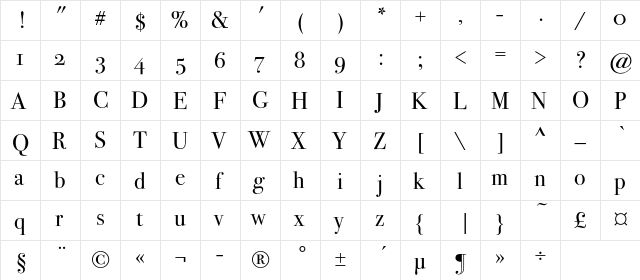
Bodoni72OSC Regular
Design Context for Bodoni72OSC Typeface
Bodoni72OSC is a composed and adaptable typeface that performs quietly and consistently across a wide range of design contexts.